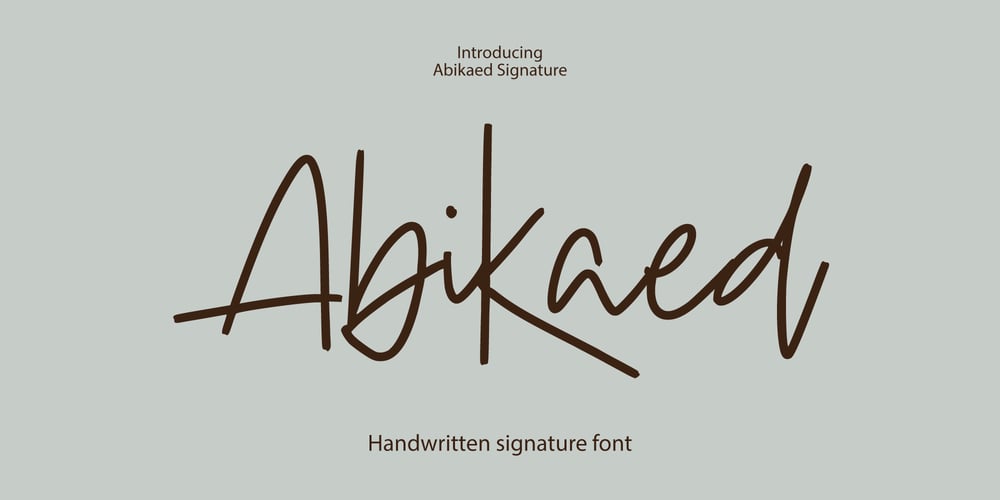
Abikaed Signature
Abikaed Signature font
Abikaed Signature Font Family was designed by Dzulka Elfira and published by Tebaltipis Studio. Abikaed Signature contains 1 styles and family package options. Abikaed Signature with a handmade Signature style, decorative characters and a dancing baseline! So beautiful on invitation like greeting cards, branding materials, business cards, quotes, posters, and more!!Abikaed Signature come with 200+ glyphs. The alternative characters were divided into several Open Type features such as Swash, Stylistic Sets, Stylistic Alternates, and Ligature. The Open Type features can be accessed by using Open Type savvy programs such as Adobe Illustrator, Adobe InDesign, Adobe Photoshop Corel Draw X version, And Microsoft Word. And this Font has given PUA unicode (specially coded fonts). so that all the alternate characters can easily be accessed in full by a craftsman or designer.